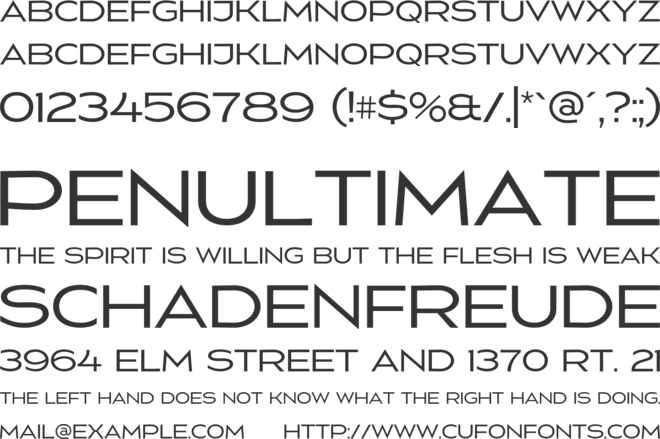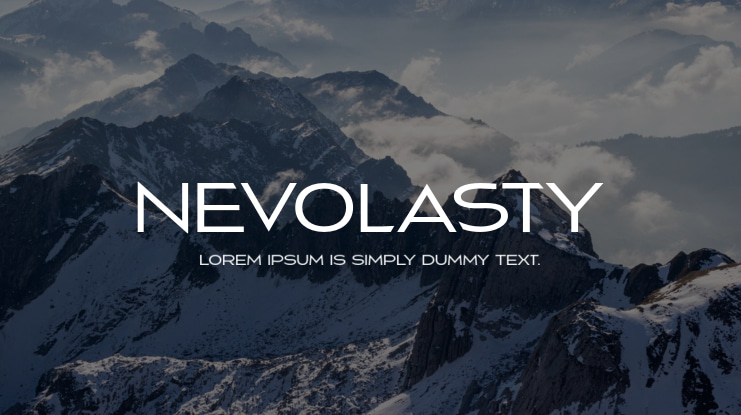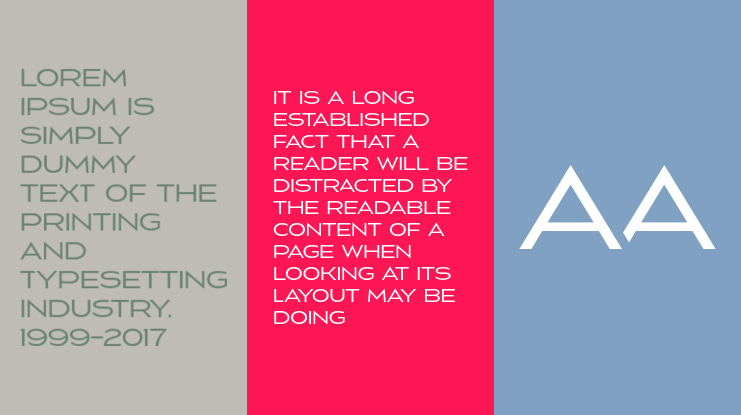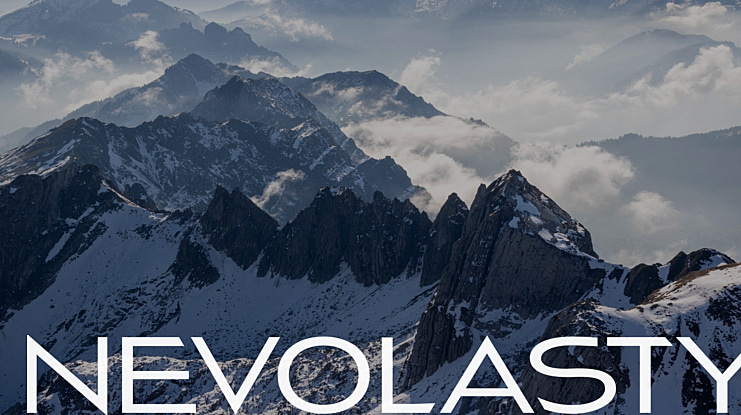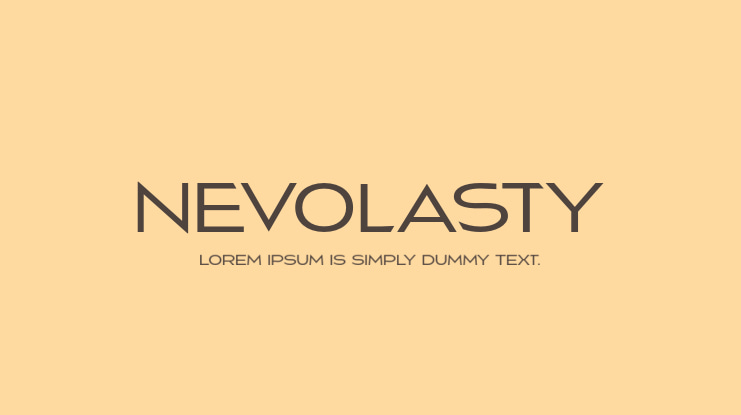
Nevolasty Font
Font Nevolasty Light is a geo­met­ric sans serif from Nevolasty fam­ily (9 weights — from Thin to Black). Per­fect for graphic design, brand­ing, pack­ag­ing design but very ver­sa­tile. With over 1000 alter­nate glyphs, this font has exten­sive Latin lan­guage sup­port for West­ern, Cen­tral, and East­ern Euro­pean and gives text a unique, ele­gant and mod­ern feel. Try mag­i­cal Styl­is­tic Set 01 with more extreme auto­matic con­tex­tual alternates.